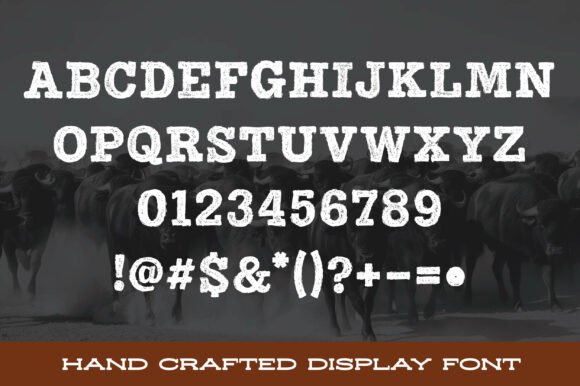
Dusty Stampede is a bold, distressed font that captures the essence of wild, untamed energy. Inspired by the rugged landscapes of the Old West, this font features a stamped, weathered appearance with rough edges and a textured feel, like it’s been pressed into timeworn paper. The irregular ink distribution and subtle smudges give it an authentic, vintage character, evoking the image of a stampede charging through dusty trails. Perfect for designs that need a touch of raw power, grit, and adventure, Dusty Stampede brings an untamed, vintage spirit to any project.
Dusty Stampede Font